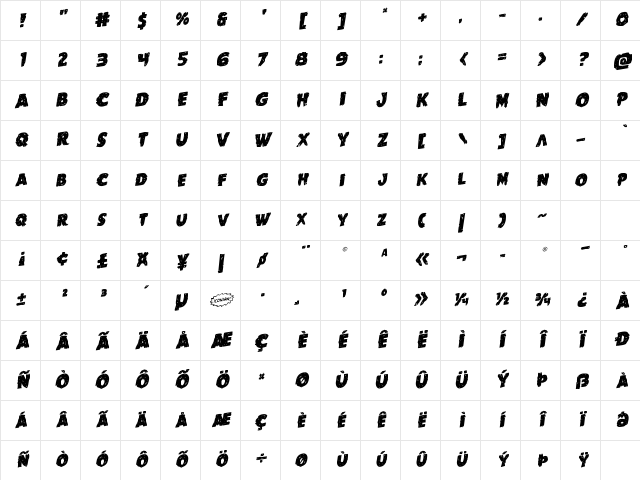
Goblin Creek Rotalic Regular Free Font
Goblin Creek Rotalic Regular
Design Context for Goblin Creek Rotalic
Goblin Creek Rotalic is a composed and adaptable typeface that performs quietly and consistently across a wide range of design contexts.